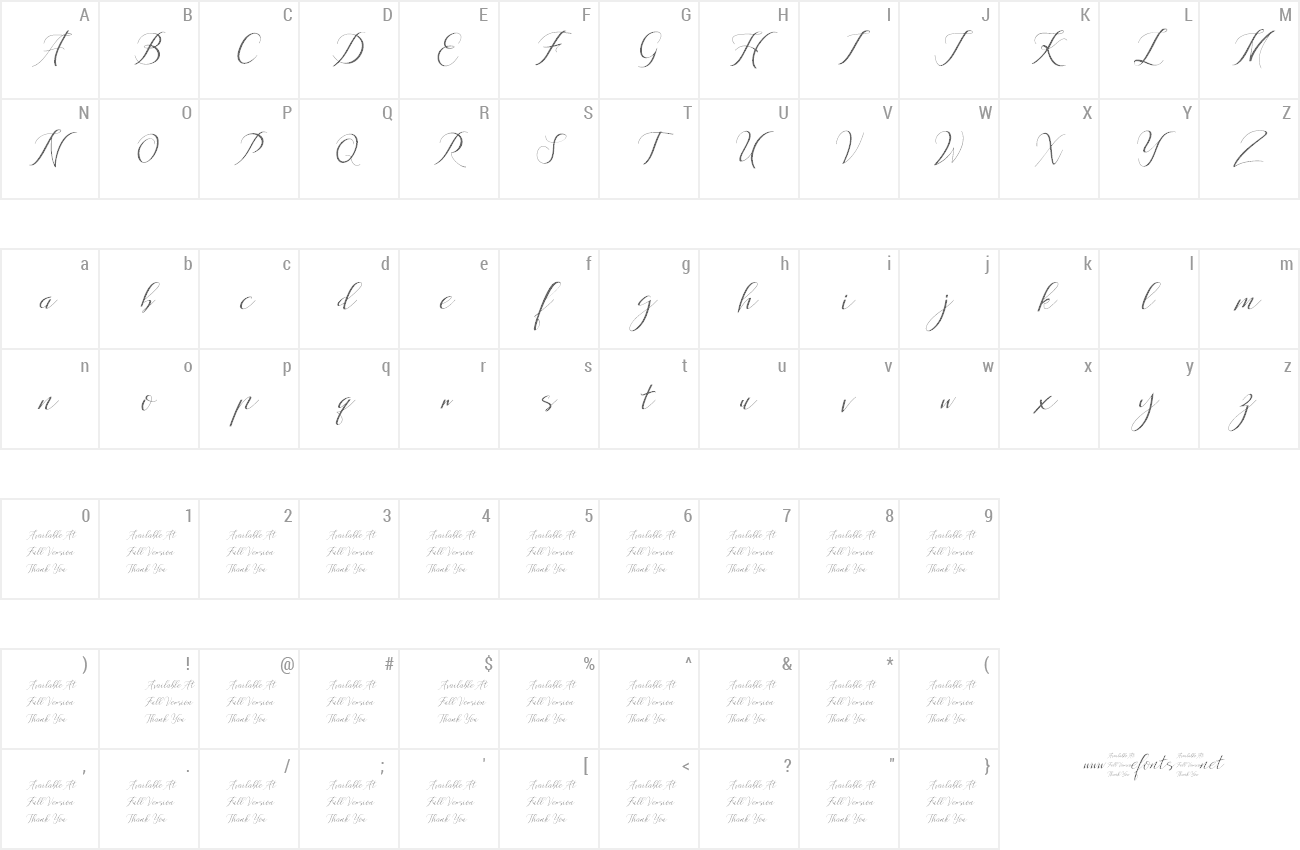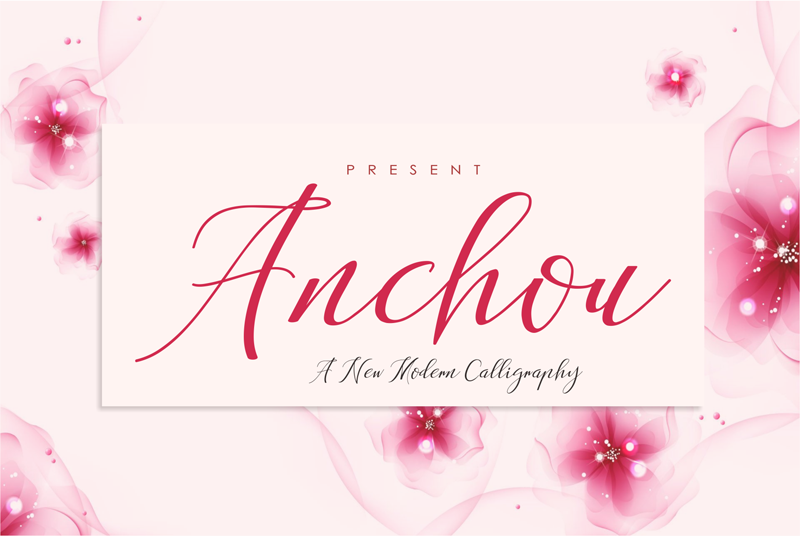
Preview and download Anchou Font. Created by Malindo Creative in Script Calligraphy styles with Demo license.
NOTE: This demo font is for PERSONAL USE ONLY! Only $2 for commercial license,Promotion Price For Limited Time. link to purchase full version and commercial license: https://www.creativefabrica.com/product/anchou/ref/112799/ https://crmrkt.com/2Rq5VA https://thehungryjpeg.com/product/3510849-anchou/ Introducing,Anchou Is A Beautiful Handwriting, This Type Of Writing Is Irregular Between The Upper And Lower, And It Is A Smooth And Coarse Typeface, This Font Is Made To Meet All Types Of Desing And Printing, This Font Supports Language, It Is Suitable To make: banners, brochures, invitations, shirts, mugs, calendars, posters, and more, and it is expected that this font will be useful for all. This font is available 255 Glyphs. � � � � � � � � � � � � � � L � T � � � � � � � � � � � � � � � l � � Anchou has given PUA encoded (fonts with special code). This Font Equipped: -Uppercase -Lowercase -Figures & Punctuation -Ligatures -Language Support Files include Anchou.ttf Anchou.otf Anchou.eot Anchou.svg Anchou.woff Anchou.woff2 If you want other files that are not here, please let me know. I will be happy to help. . If There Any questions, Please Let Me Know,Contact Me,At malindocreative@gmail.com,Your support and suggestion is needed, And I am Happy To Help You. More... |